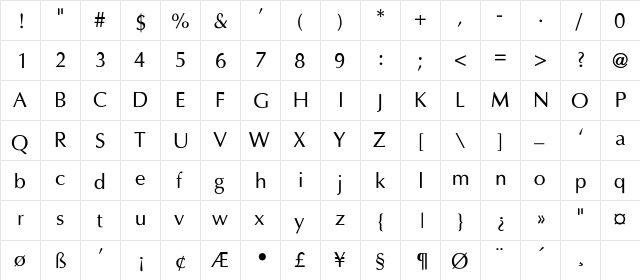
Optima-Thin Regular
Design Context for Optima-Thin Typeface
Optima-Thin offers clean, dependable letterforms without strong stylistic allegiance, making it a practical choice for designers who need flexibility. Its slender proportions lend an understated elegance to any composition.
Pro Tip: Pair Optima-Thin with a font of contrasting weight or personality to build a more expressive typographic hierarchy.